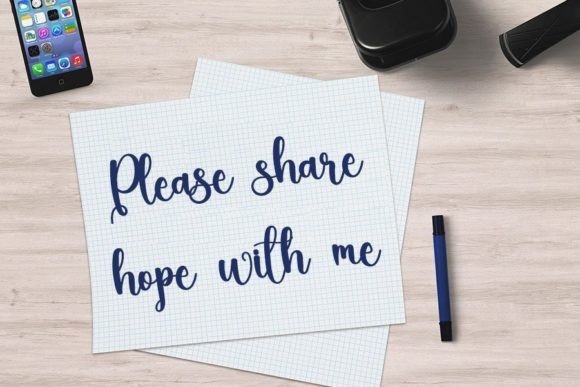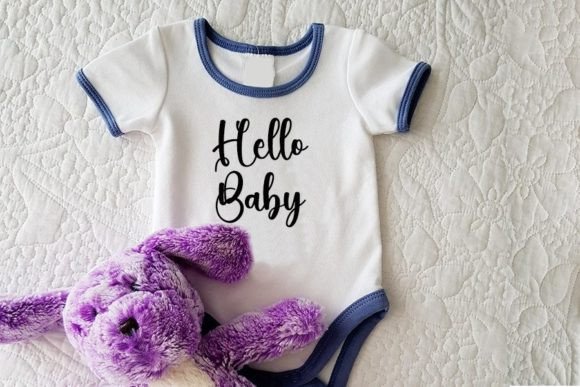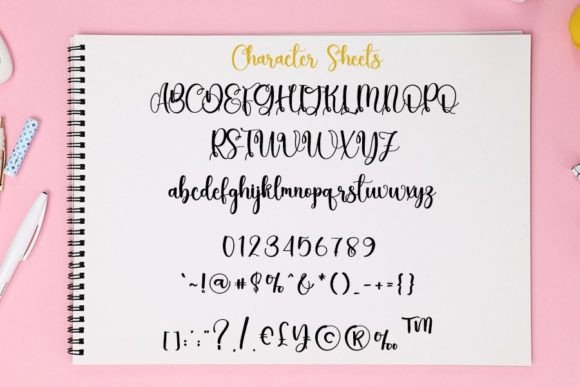
Jolly Font
About Jolly Font
Jolly is a delicately crafted and well-rounded handwritten font, tailored to bring an authentic touch to your crafty projects. This versatile font serves as an excellent choice for a range of creative endeavors, including wedding invitations, birthday cards, personal branding, elegant logos, and more. With its subtle and nuanced design, Jolly adds a unique charm that enhances the authenticity of your typography.
The delicate strokes of Jolly make it particularly suitable for creating an intimate and personalized atmosphere in wedding invitations. The font’s attention to detail contributes to a memorable design, capturing the essence of special moments. Envision Jolly lending its crafted aesthetic to birthday cards, infusing your messages with a genuine and heartfelt touch.
In the realm of personal branding, Jolly offers a distinctive and well-rounded typographic identity. Its delicate design strikes a balance between approachability and sophistication, making it an excellent choice for establishing an authentic connection with your audience. Incorporating Jolly into elegant logos allows for the creation of a signature look that reflects creativity and genuine craftsmanship.
The font’s versatility extends to various crafting projects where an authentic and well-rounded touch is desired. Whether you’re involved in DIY endeavors, crafting handmade goods, or embarking on any creative project that demands genuine and well-rounded typography, Jolly emerges as an excellent choice.
In conclusion, Jolly is more than just a font; it’s a design element that adds a delicate and well-rounded authenticity to your crafty projects. Elevate your creative endeavors, from invitations to personal branding, with the genuine and well-rounded charm of Jolly. Let this font be the authentic touch that brings a crafted and personalized feel to your designs, making them stand out with a unique and heartfelt appeal.